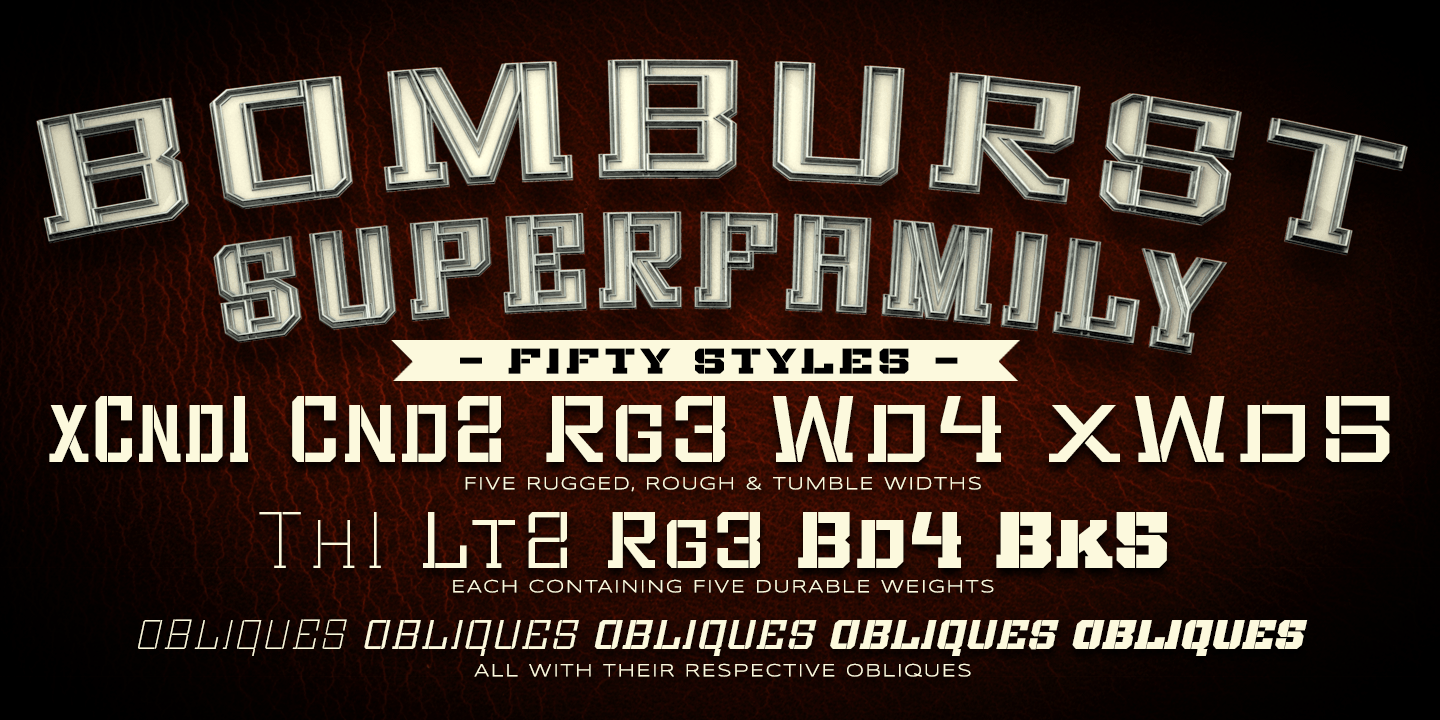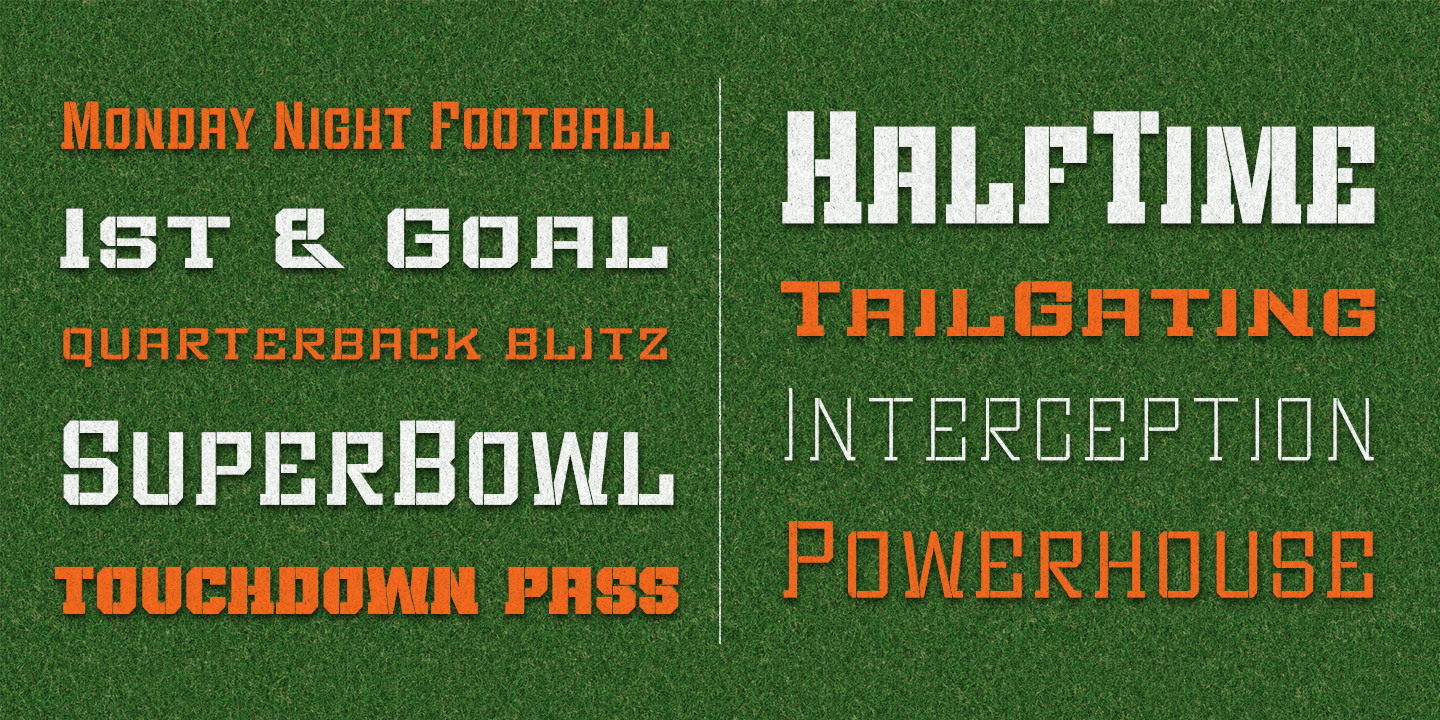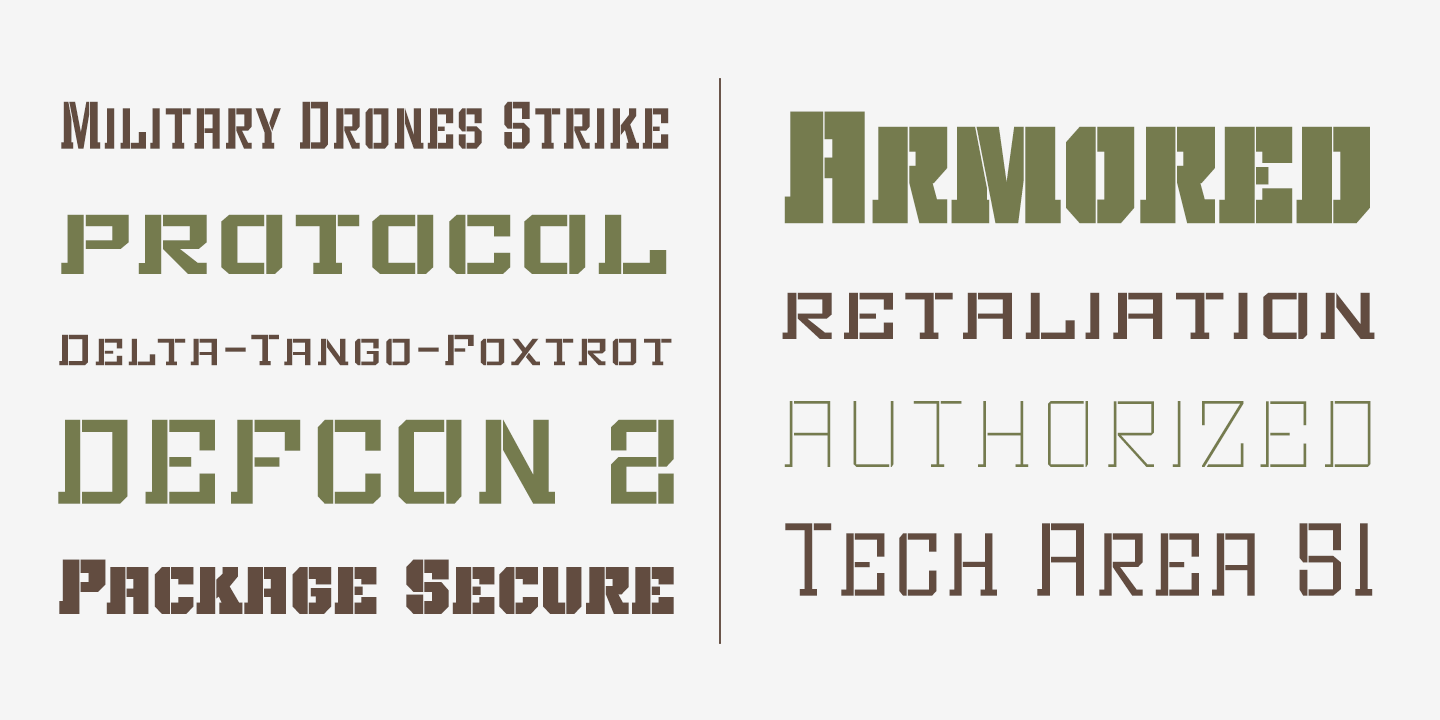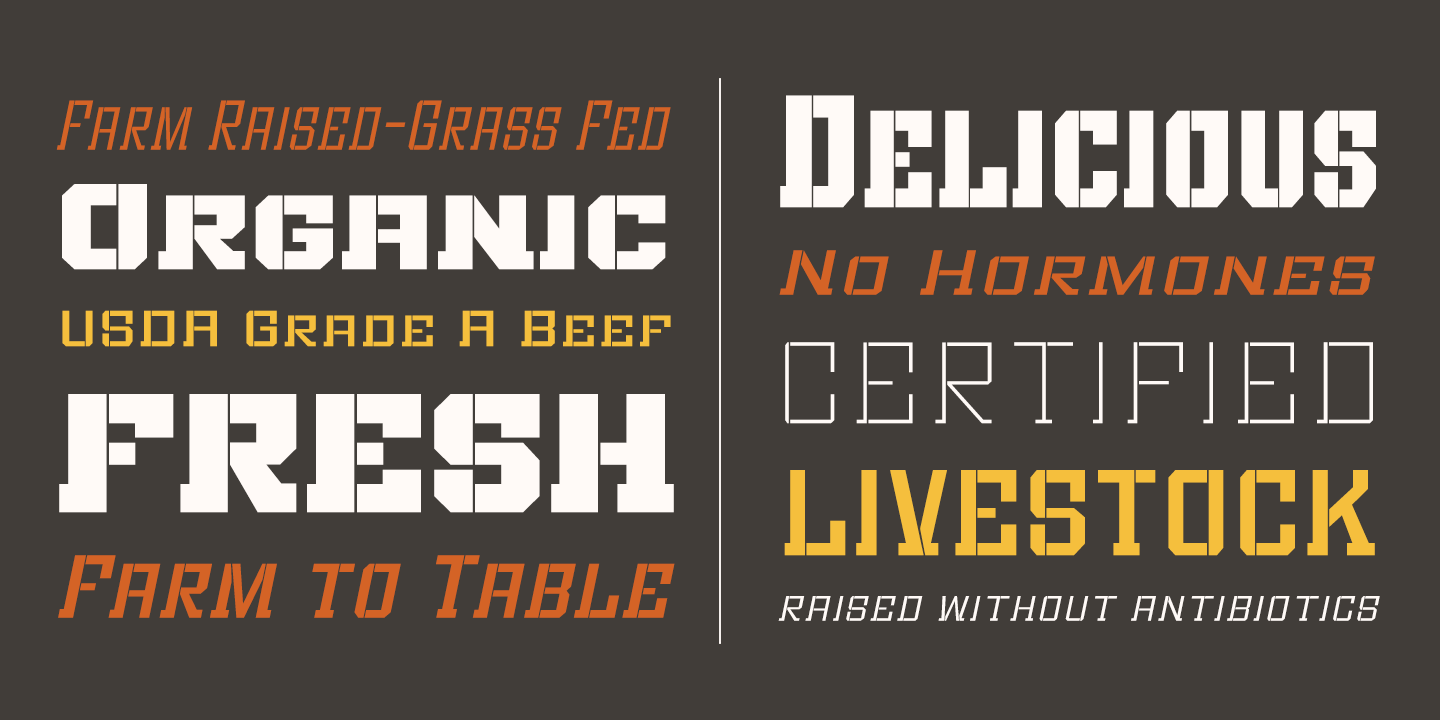
Bomburst
Font Family by VersusTwin
The Bomburst Superfamily is a hybrid blend of sans & serif tech-geometric lettering with stencil styling. Loaded with five rugged, rough and tumble widths (ExtraCondensed, Regular, Wide, and ExtraWide), each containing 5 durable weights (Thin, Light, Regular, Bold, and Black), followed up with Obliques to match all widths and weights, this 50 font family spans the gamut of needs for its genre.
Whether Sci-Fi, Military, Industrial Farming, Techno, Crate Stencil, etc, this family can cover the design needs.
Bomburst is a rough-and-tumble megafamily that keeps on coming back for more. It is a powerhouse hybrid serif that makes a bold design statement.